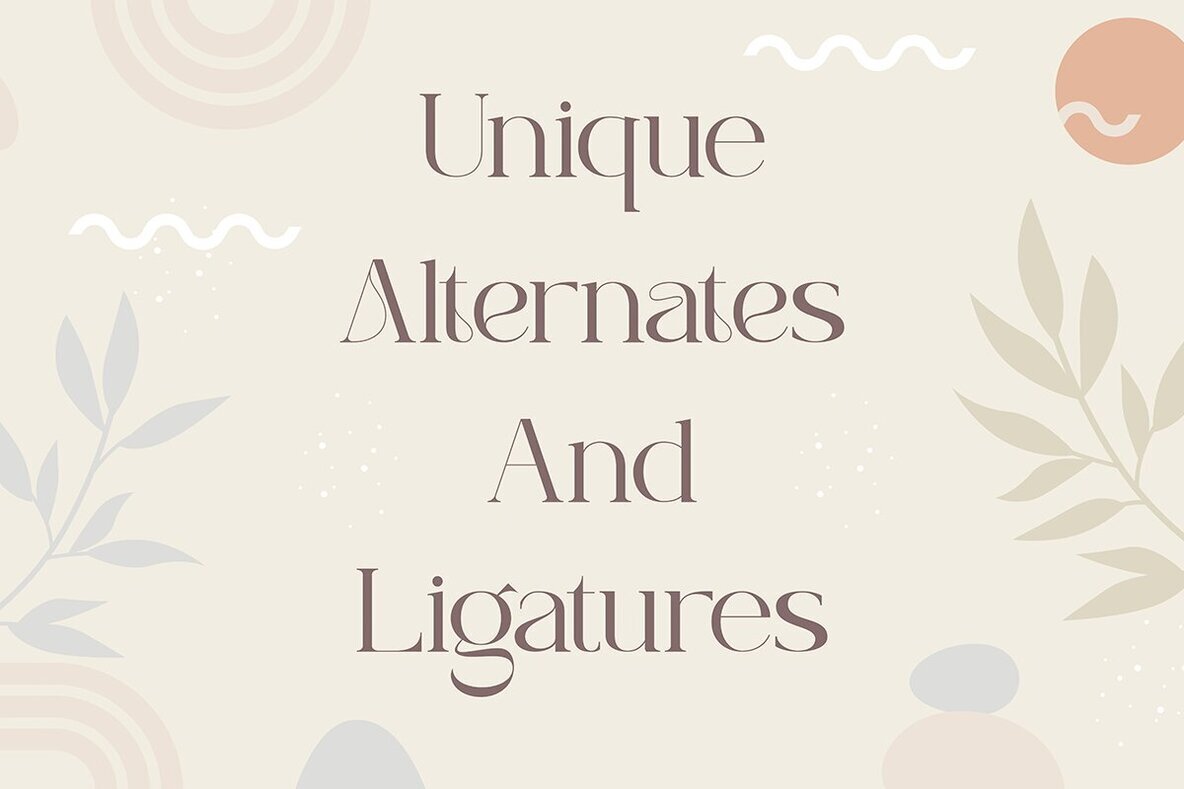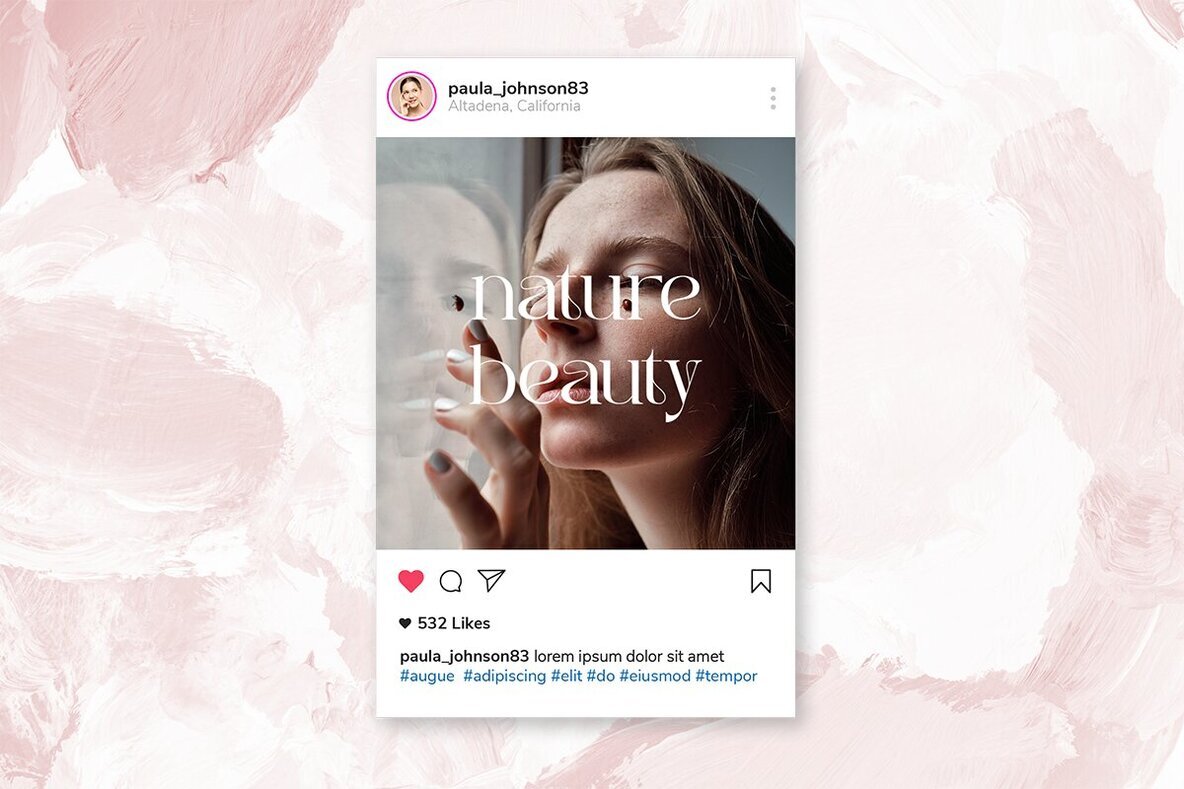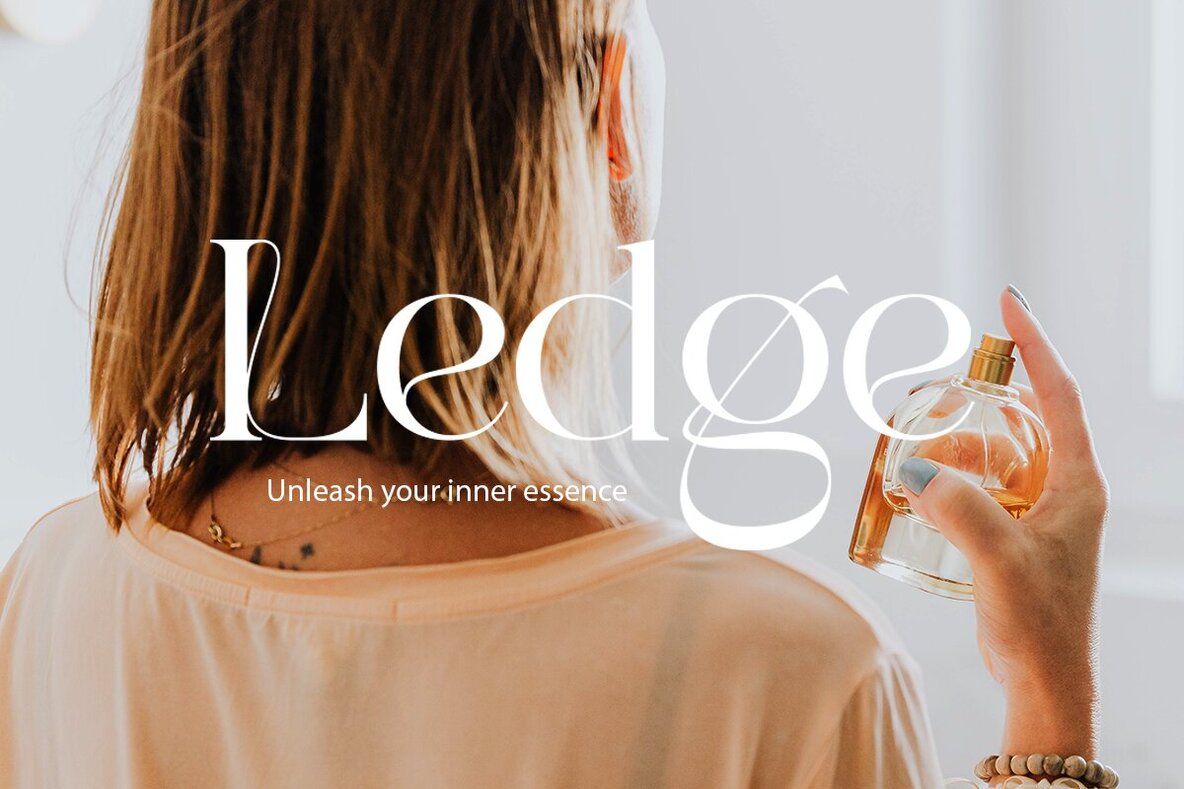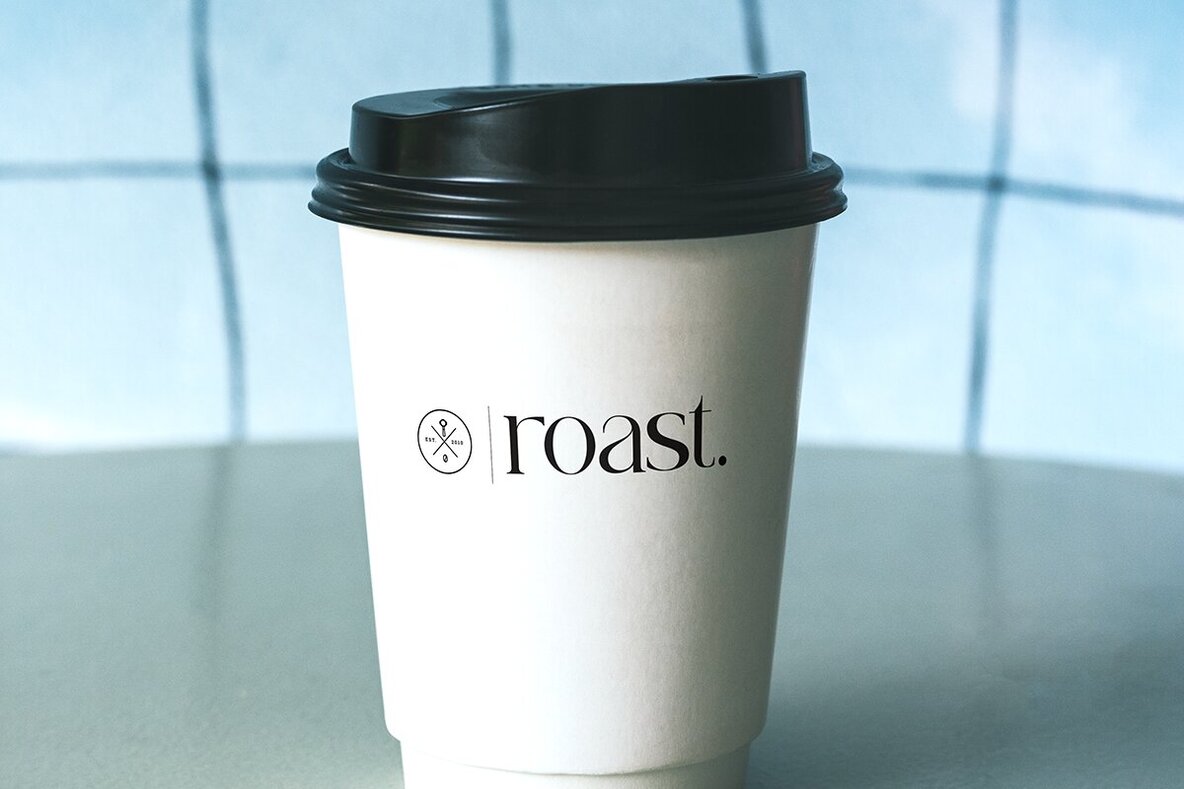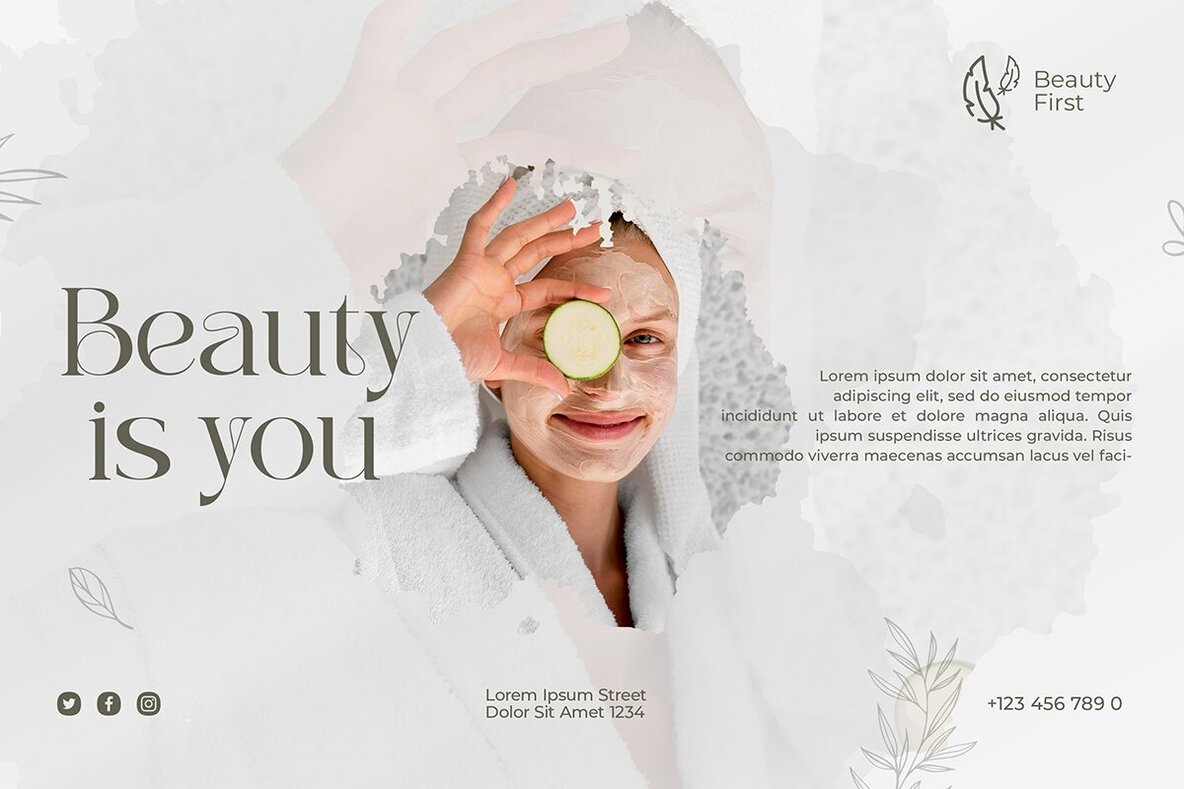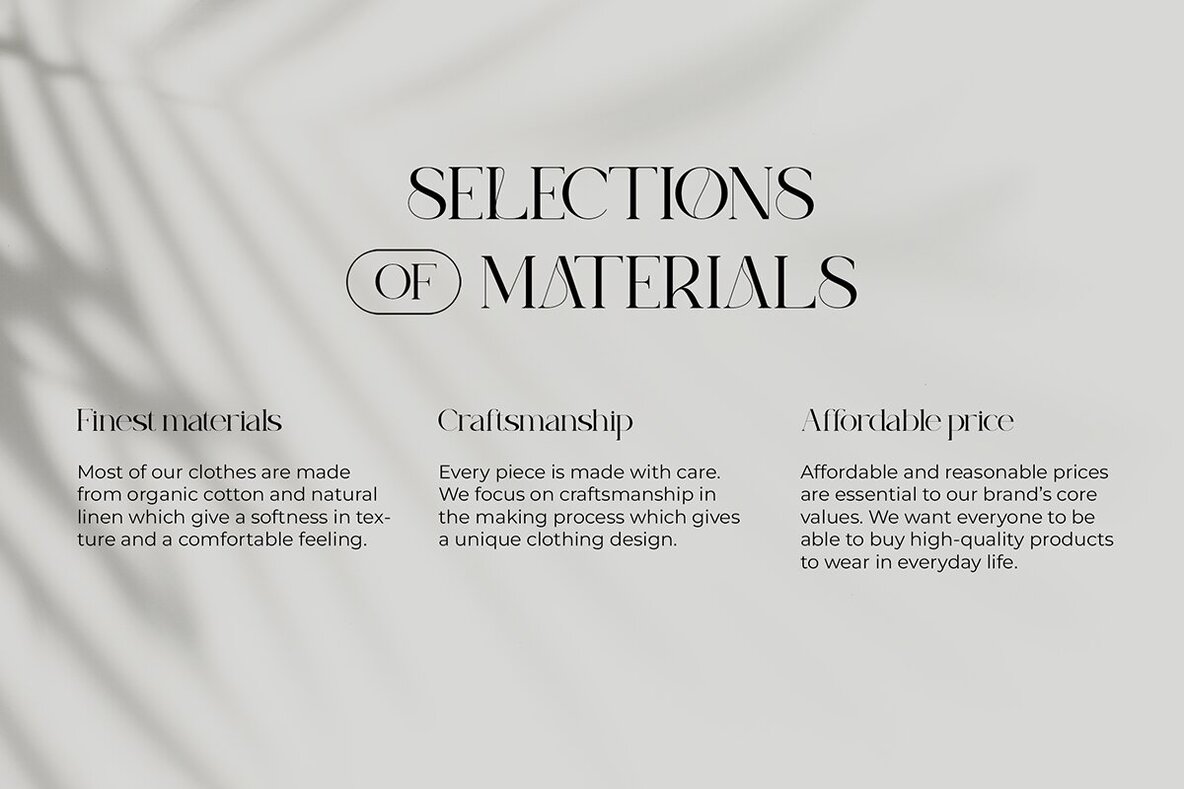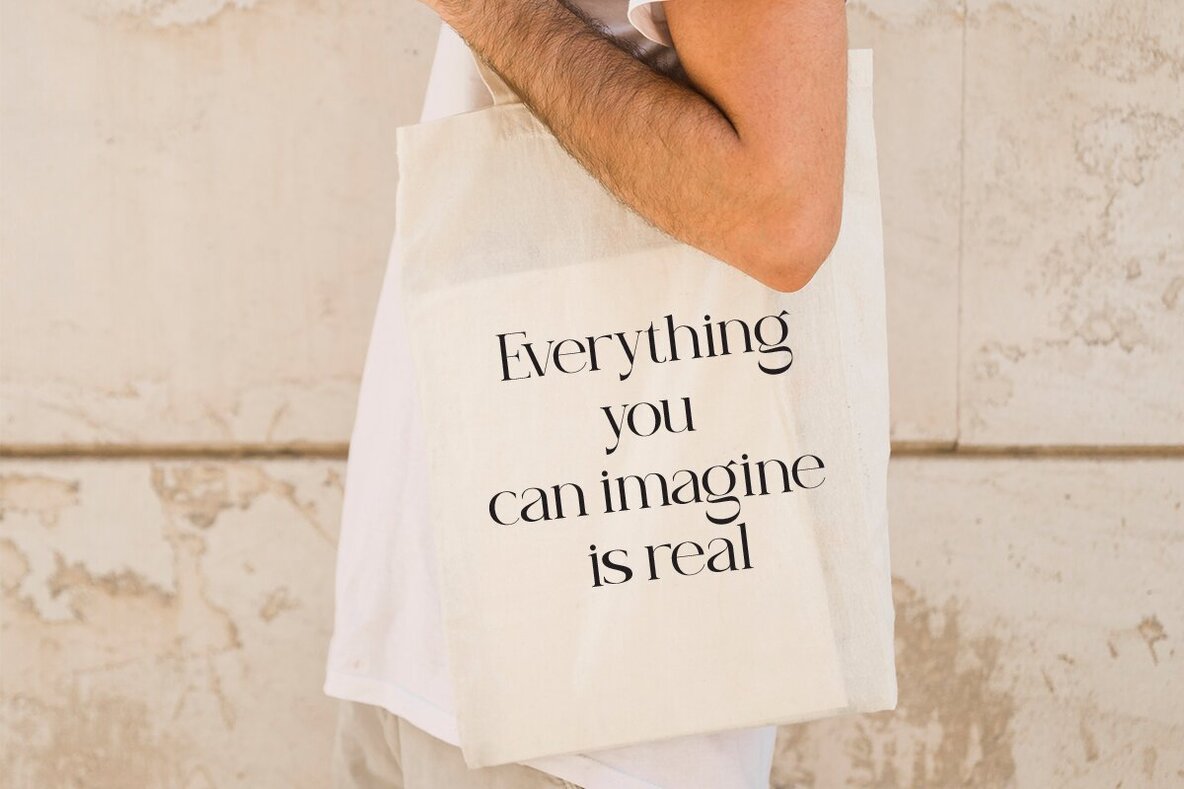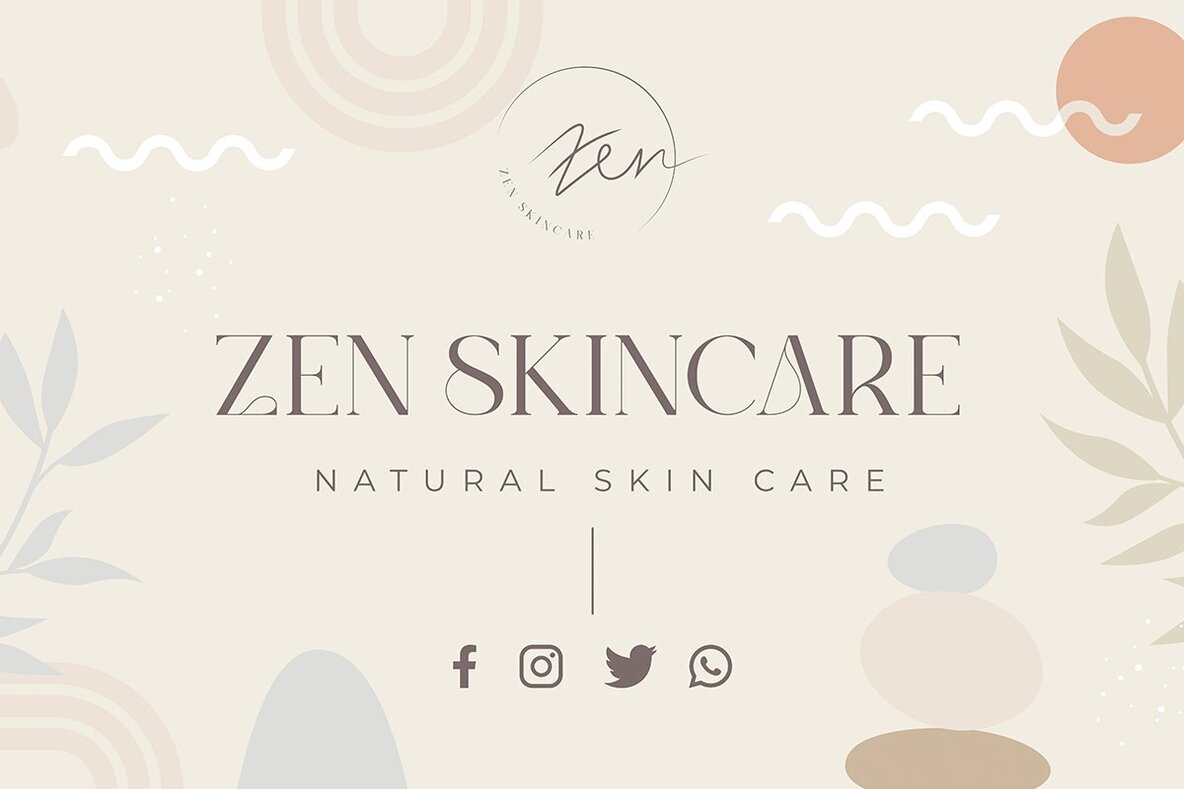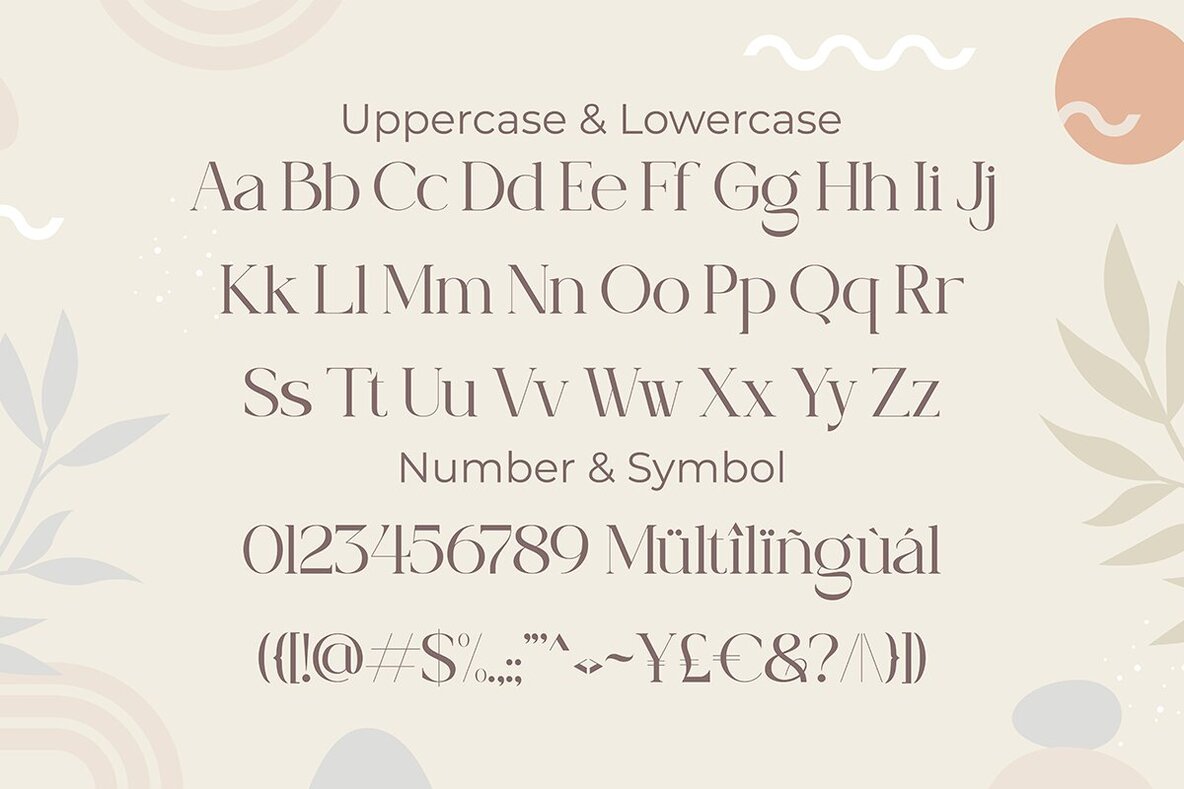
Kegger Font
Kegger Regular
Kegger is a type of elegant display font that features large, bold lettering with unique decorative details on each character.The font gives off an elegant and classic feel, while still appearing modern and in line with current design trends. Kegger is well-suited for a variety of projects that require a high-end, eye-catching look, such as wedding invitations, luxury product packaging design, or promotional materials for brands looking to convey an exclusive and luxurious image.This serif font is also suitable for logo design or website design that aims to showcase a creative and elegant look, while still maintaining a professional and classic appearance.